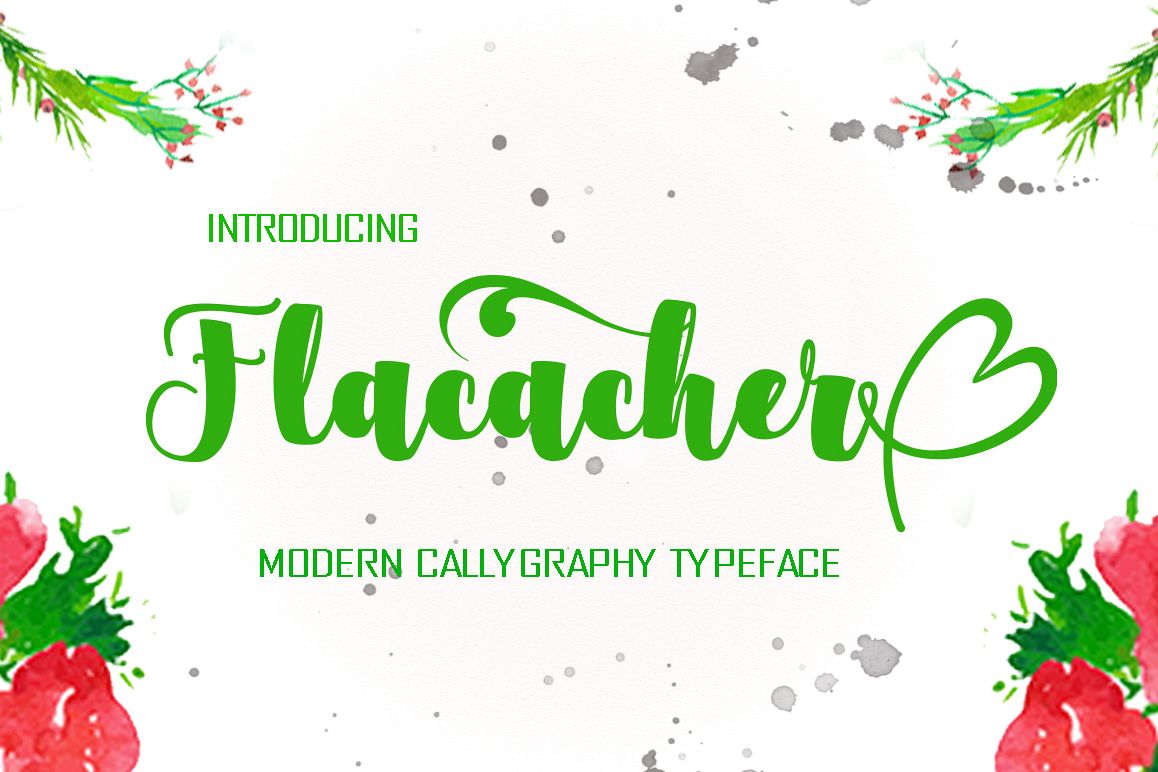
Flacacher
Flacacher Modern Calligraphy. This font was designed by handwriting, and it has a modern and unique forms of calligraphy, the writing style is very natural.
The Features of this fonts is;
* Standart ligatures
* Stylistic Alternates
* Contextual Alternates
* Stylistic sets
Can be used for various purposes.such as headings, logos, wedding invitation, t-shirt, letterhead, signage, lable, news, posters, badges etc. To enable the OpenType Stylistic alternates, you need a program that supports OpenType features such as Adobe Illustrator CS, Adobe Indesign & CorelDraw X6-X7.